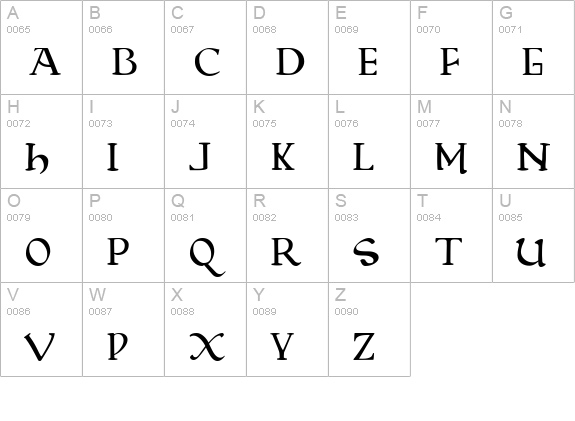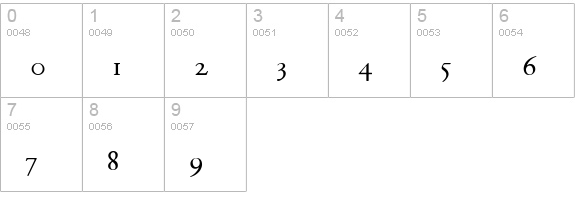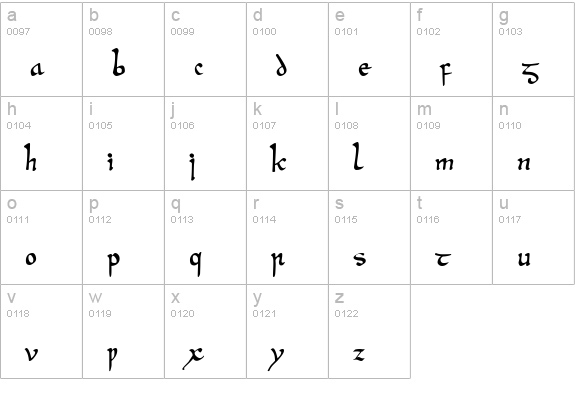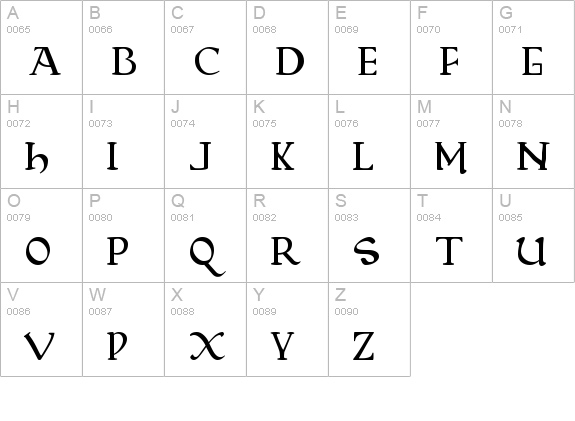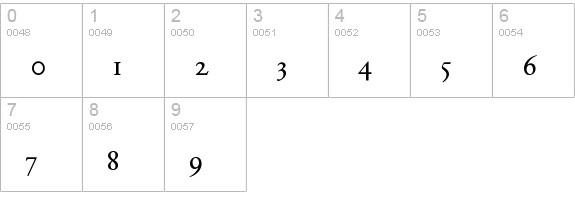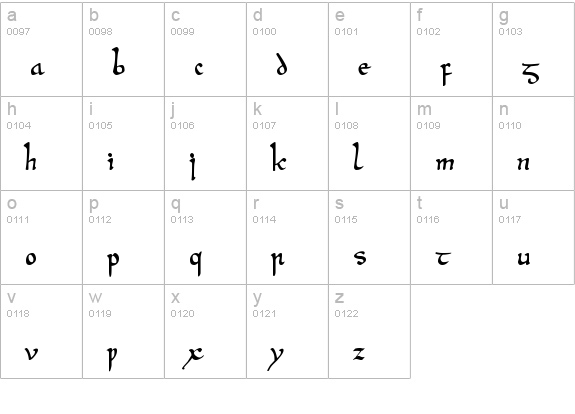
Beowulf Modern Font Details
Beowulf Modern font is a striking and contemporary typeface that exudes sophistication and elegance. With its clean lines and sleek design, this font is perfect for a wide range of projects, from branding to editorial design. The sharp edges and modern aesthetic of Beowulf Modern make it a versatile choice for both digital and print applications. The best part? Beowulf Modern font is completely free to download at FontsMarket.com. Whether you're a professional designer looking to add a fresh touch to your projects or a hobbyist in need of a stylish font for personal use, Beowulf Modern font is the perfect choice. Download it today and elevate your designs with this sleek and stylish typeface.